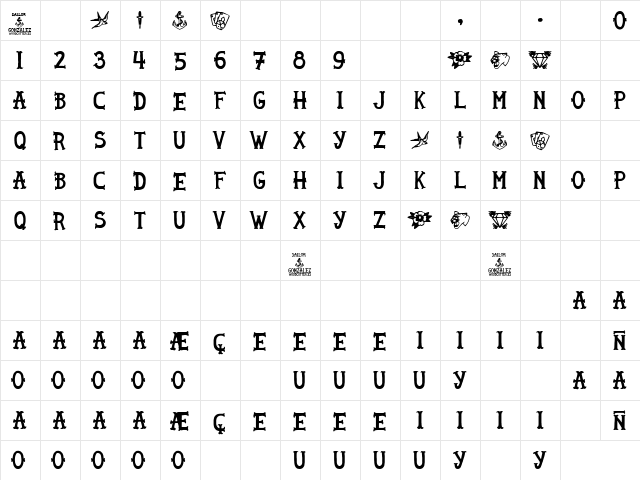
Sailor Gonzalez Regular
| Designer | Woodcutter Manero |
Design Context for Sailor Gonzalez Typeface
Sailor Gonzalez is a composed and adaptable typeface that performs quietly and consistently across a wide range of design contexts.